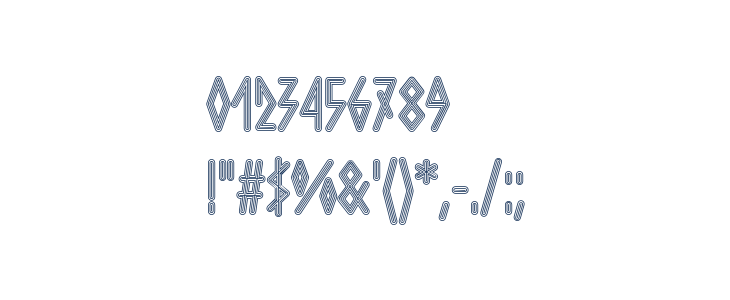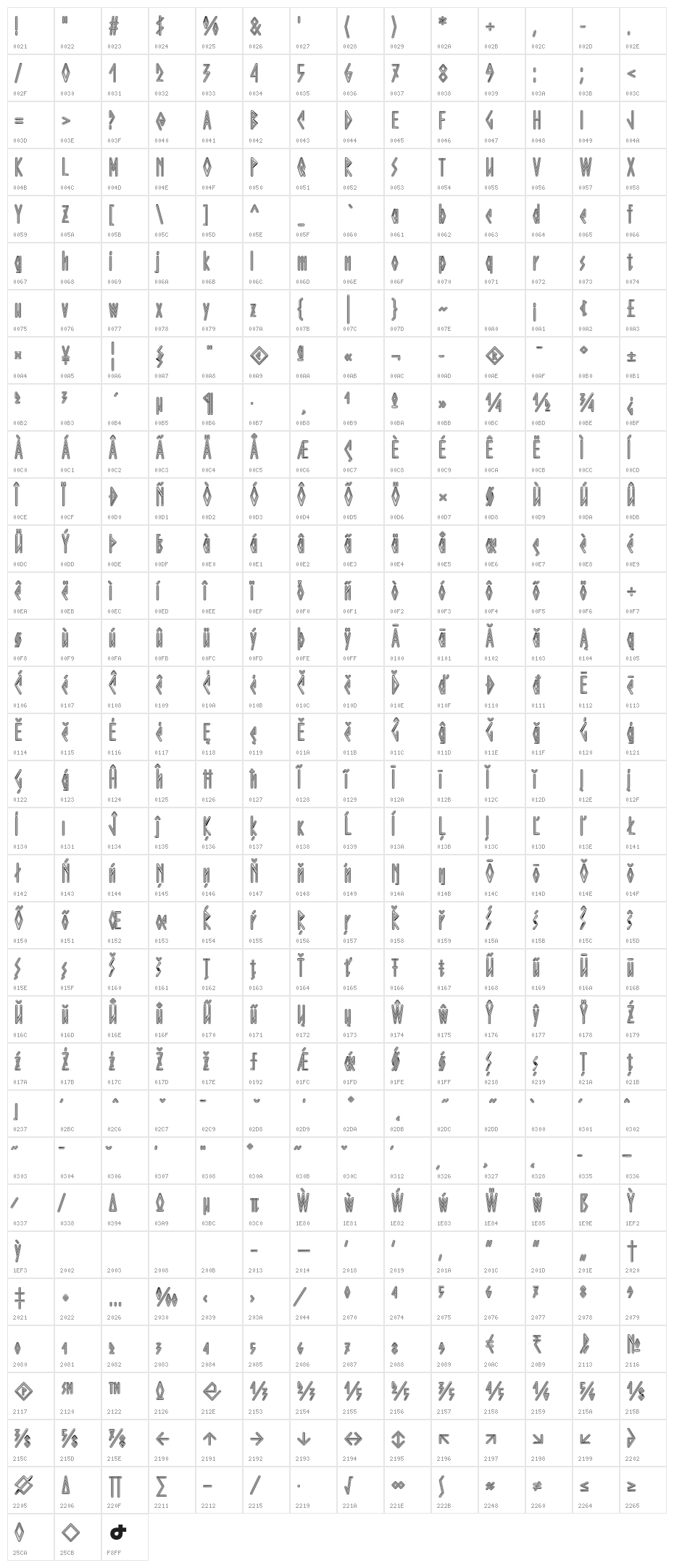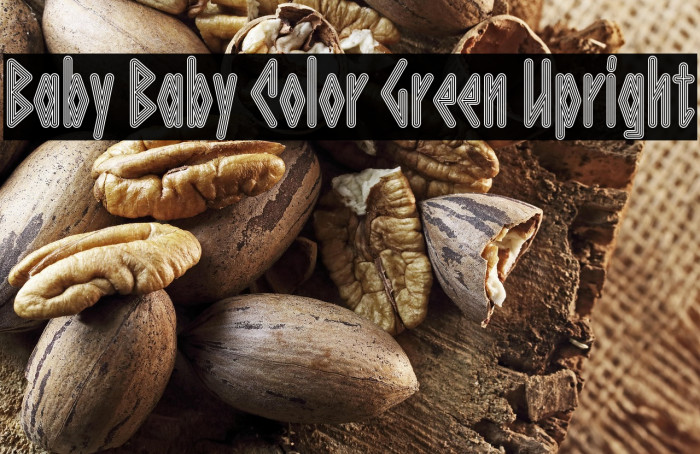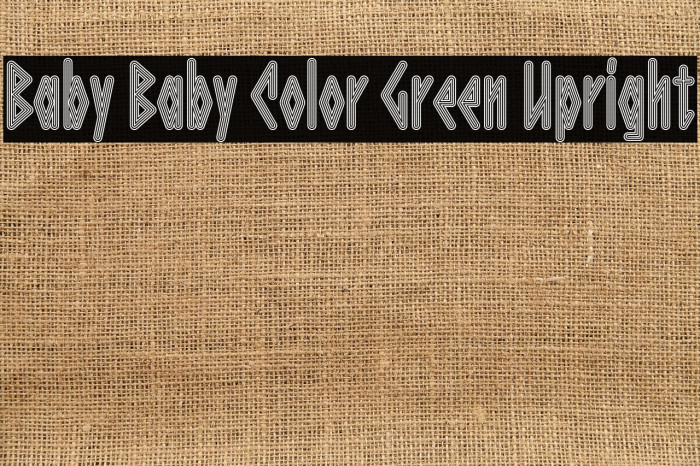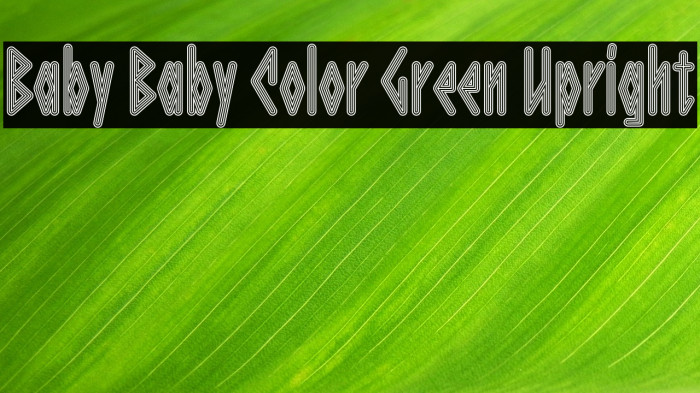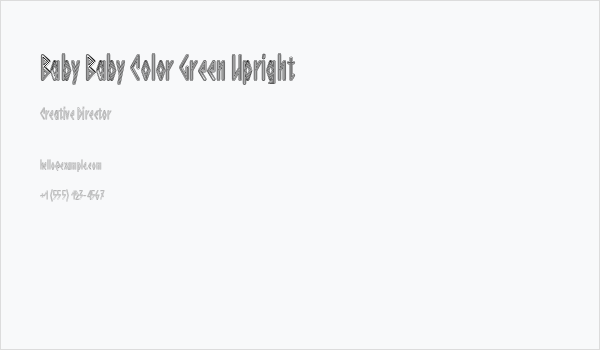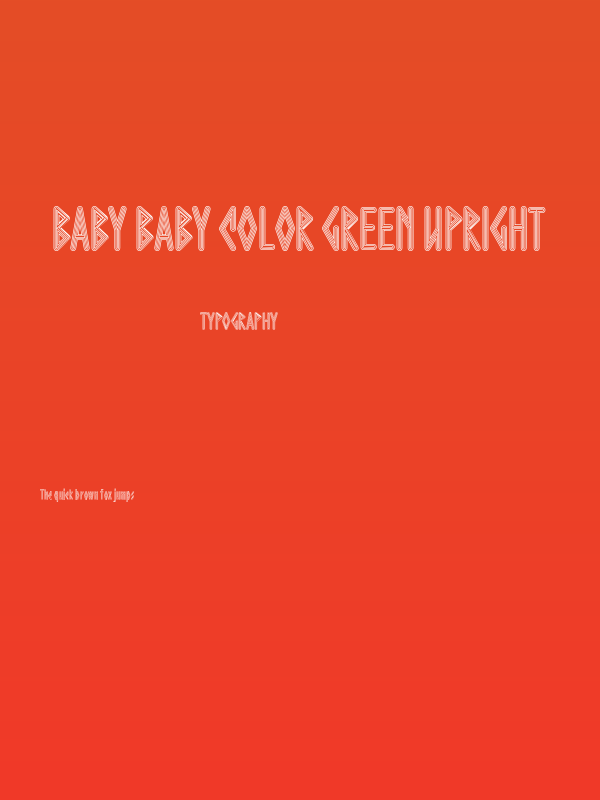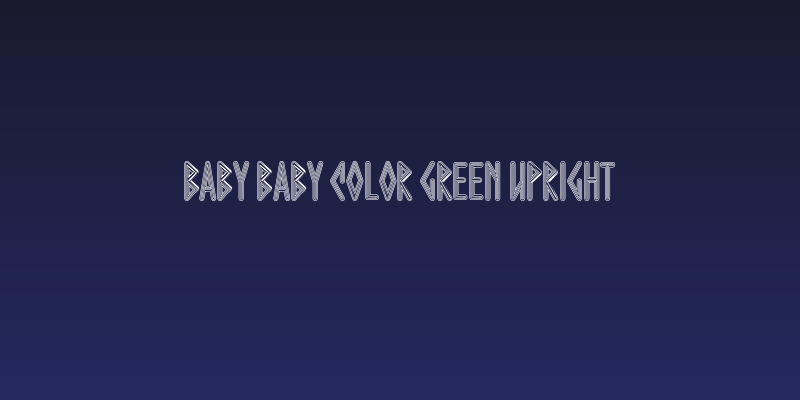
Baby Baby Color Green Upright Font
Baby Baby Color Green Upright Description
This font features a unique, decorative style with a three-dimensional effect created by multiple parallel lines forming each character. The uppercase and lowercase letters maintain a consistent geometric structure, with sharp angles and clean lines. Numbers and special characters follow the same design principles, ensuring a cohesive look across all elements. The font's playful yet structured appearance makes it suitable for eye-catching designs. Its intricate detailing requires careful consideration of background and color to ensure readability.
| Proposed Projects | Ideal for posters, logos, and creative branding projects where a bold, artistic statement is desired. |